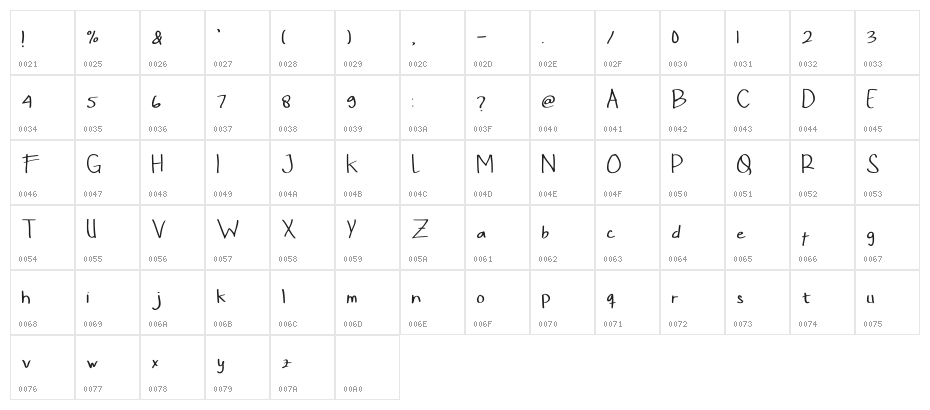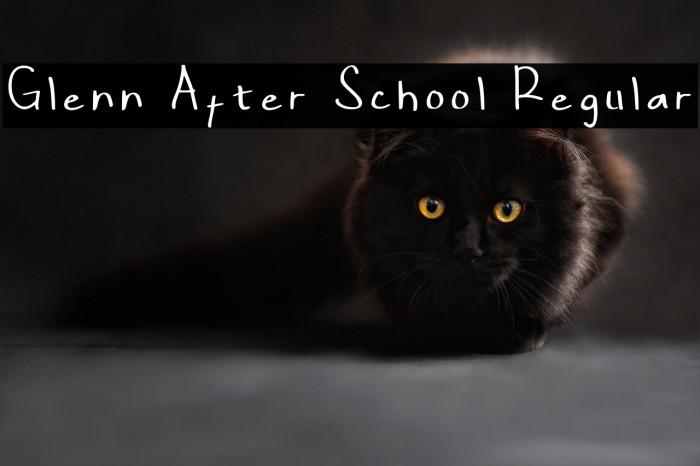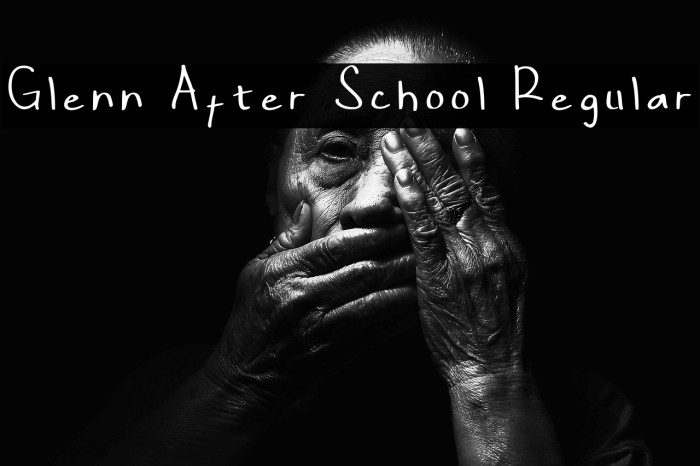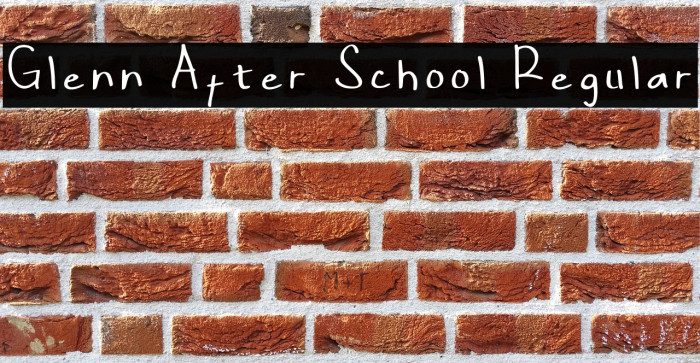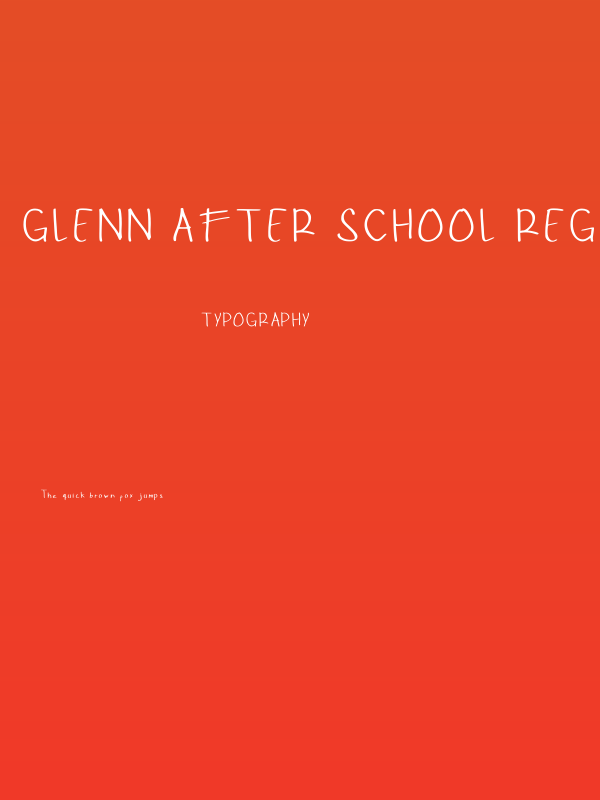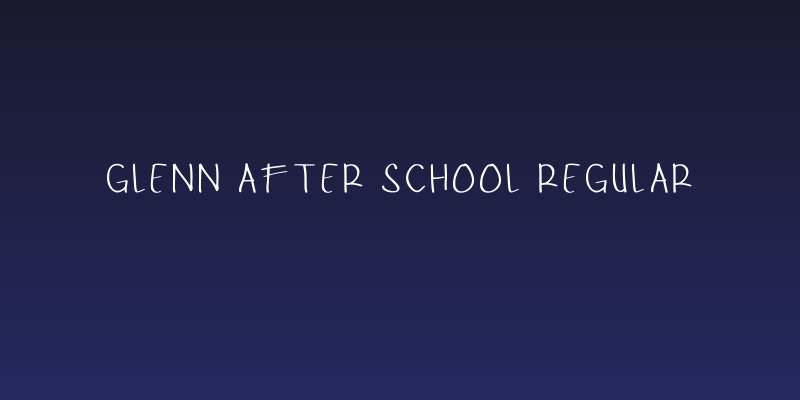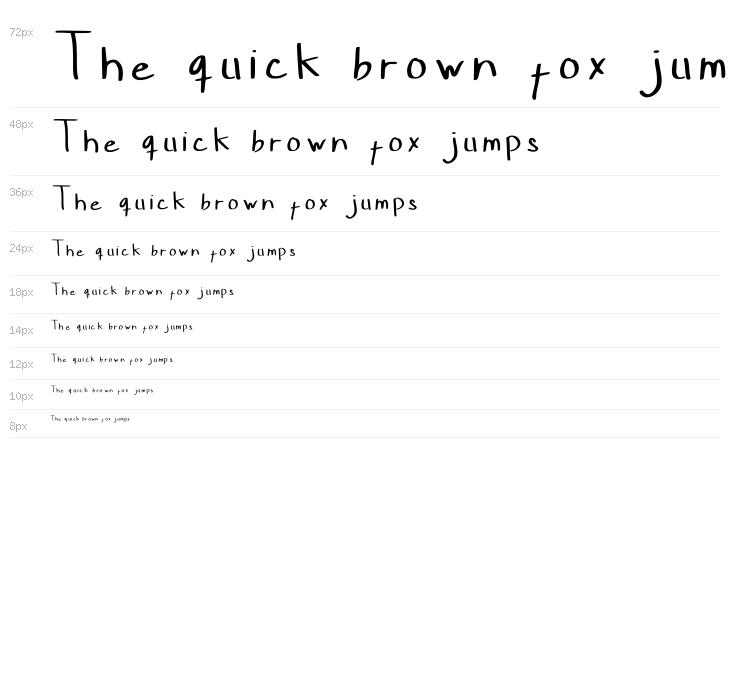
Glenn After School Regular Font
Glenn After School Regular Description
This font exudes a playful and casual handwritten style, characterized by its irregular and slightly whimsical letterforms. The strokes are uneven, giving it a natural, hand-drawn appearance that feels approachable and friendly. The uppercase letters are tall and slightly narrow, while the lowercase letters maintain a consistent flow with a touch of quirkiness. The numbers and special characters follow the same playful aesthetic, making them blend seamlessly with the alphabet. This font's charm lies in its simplicity and the personal touch it adds to any text.
| Proposed Projects | Ideal for children's books, greeting cards, personal blogs, and informal branding projects. |